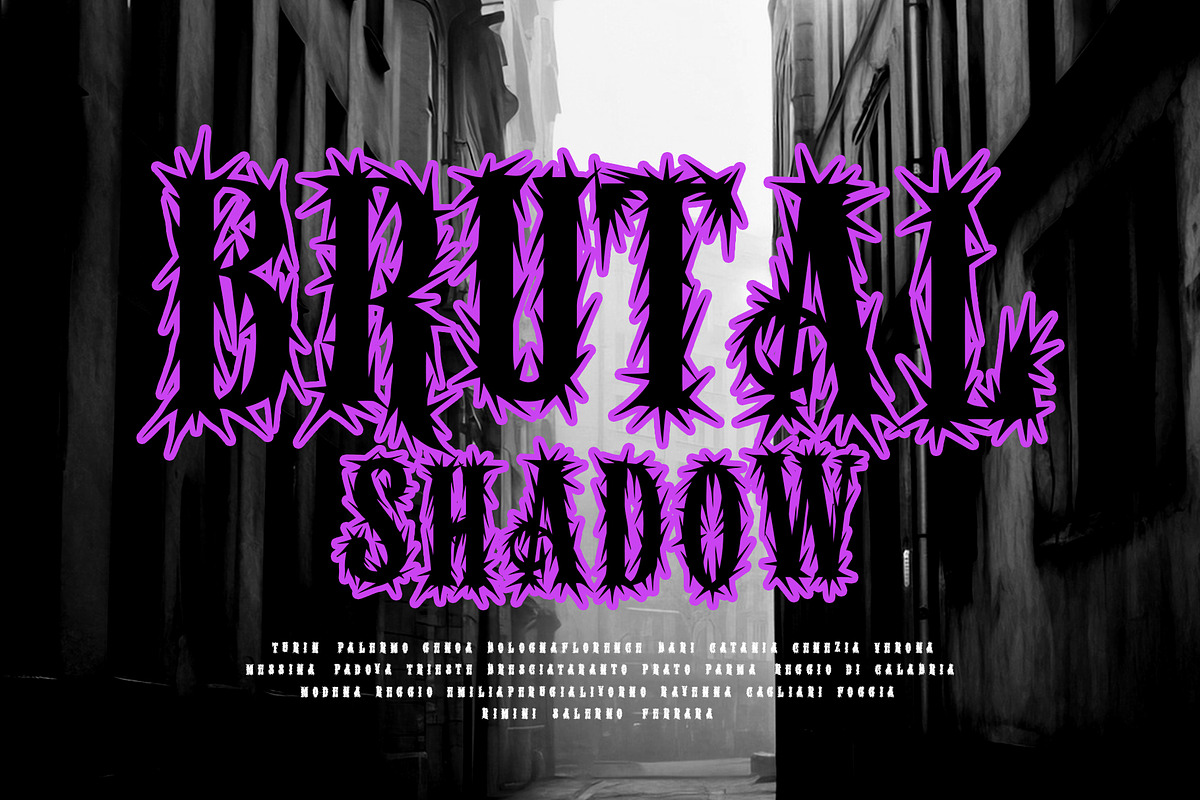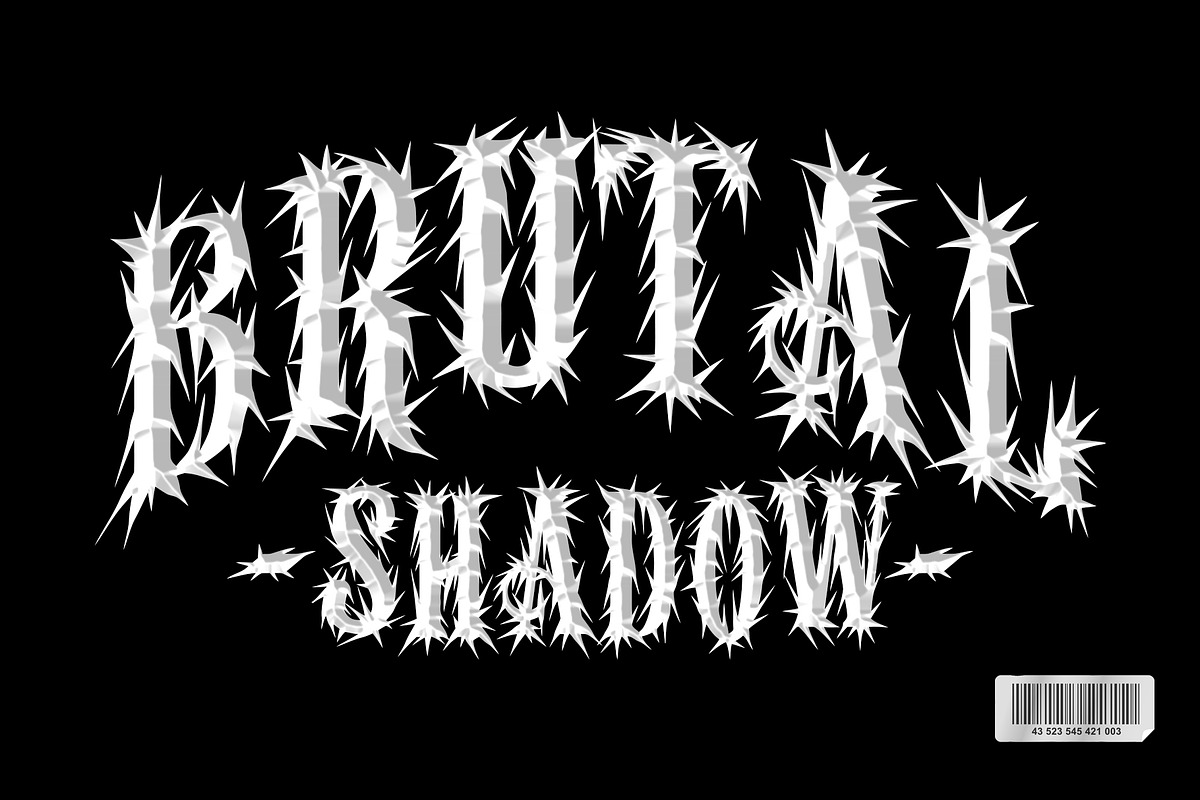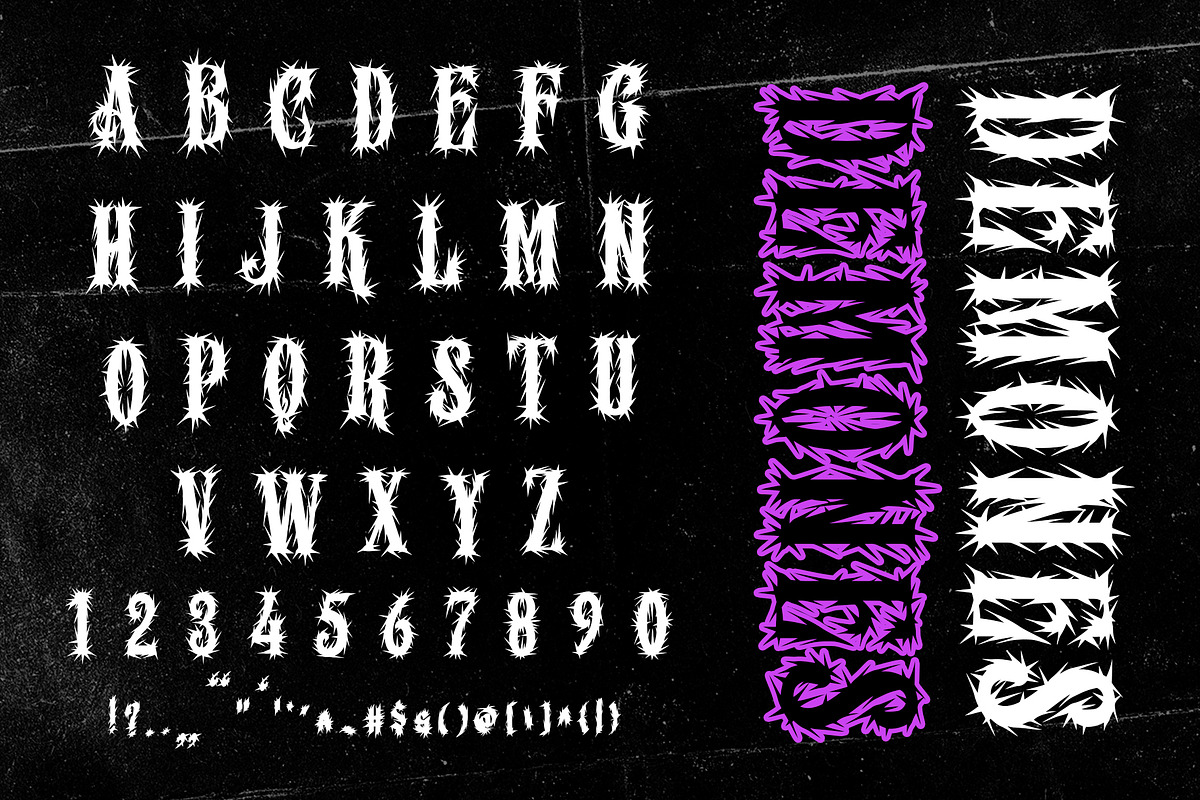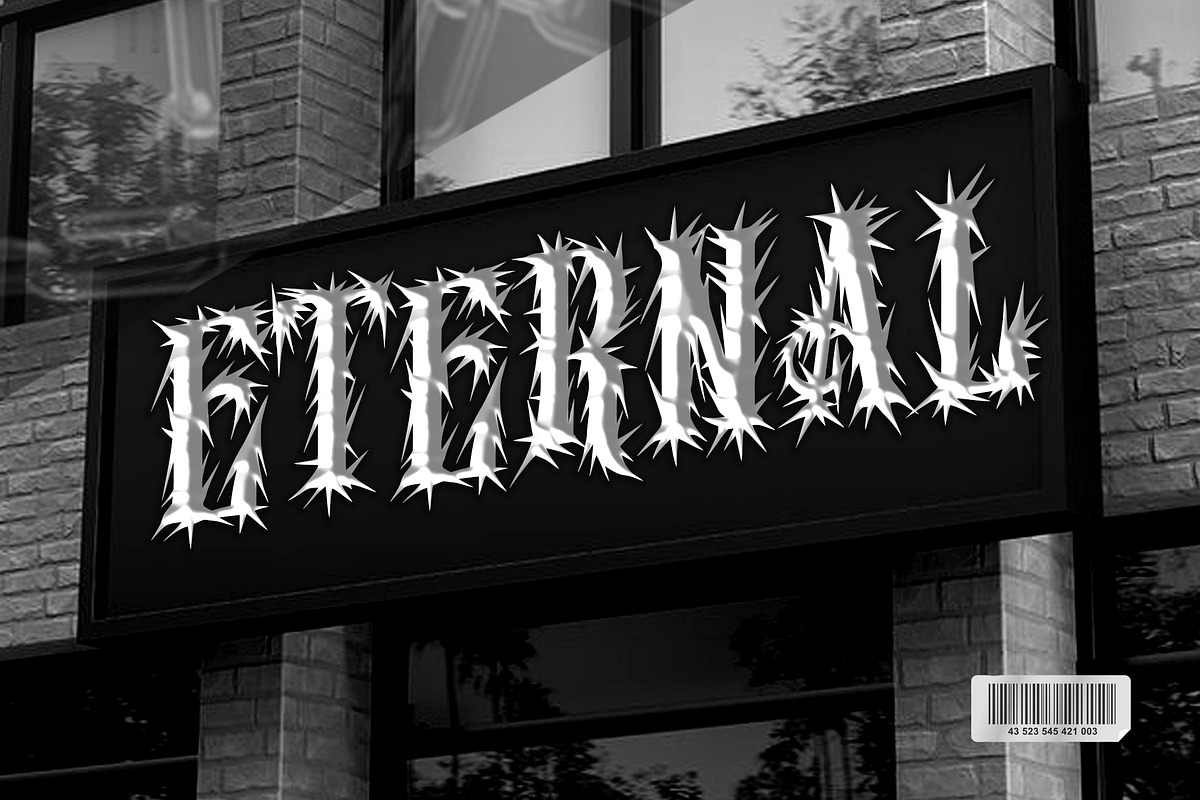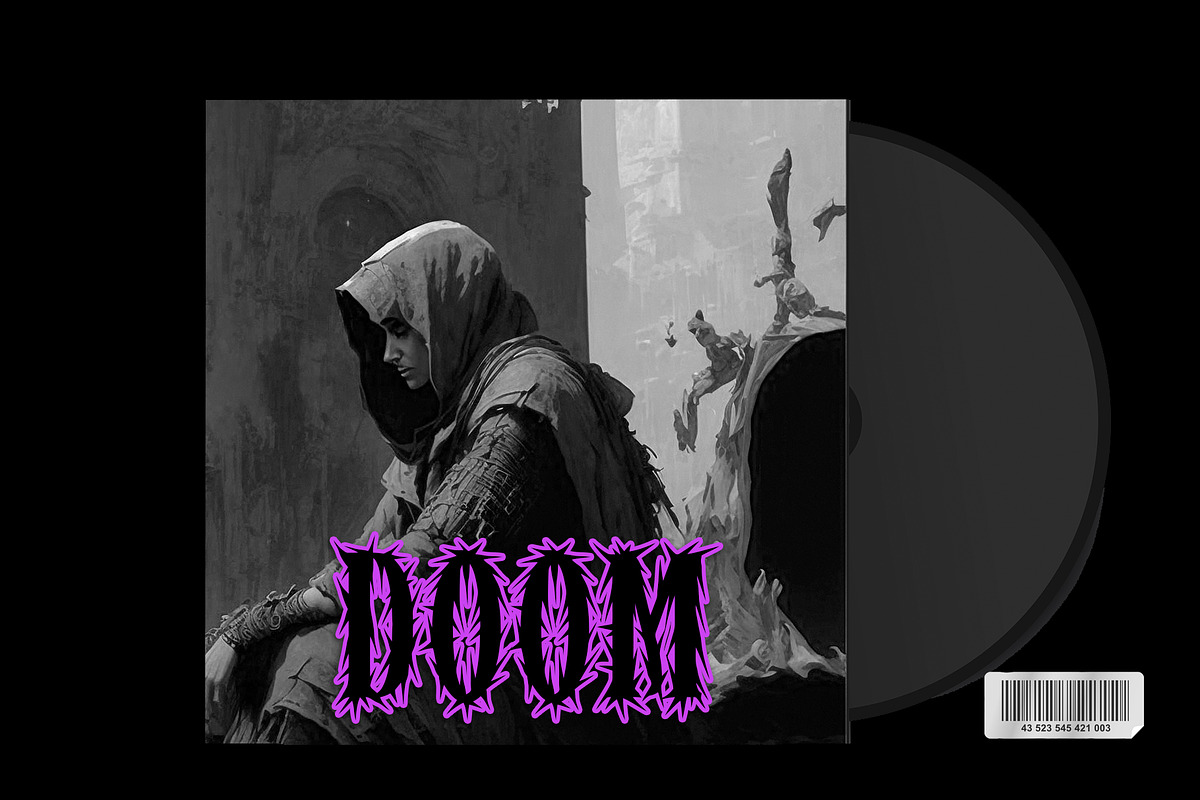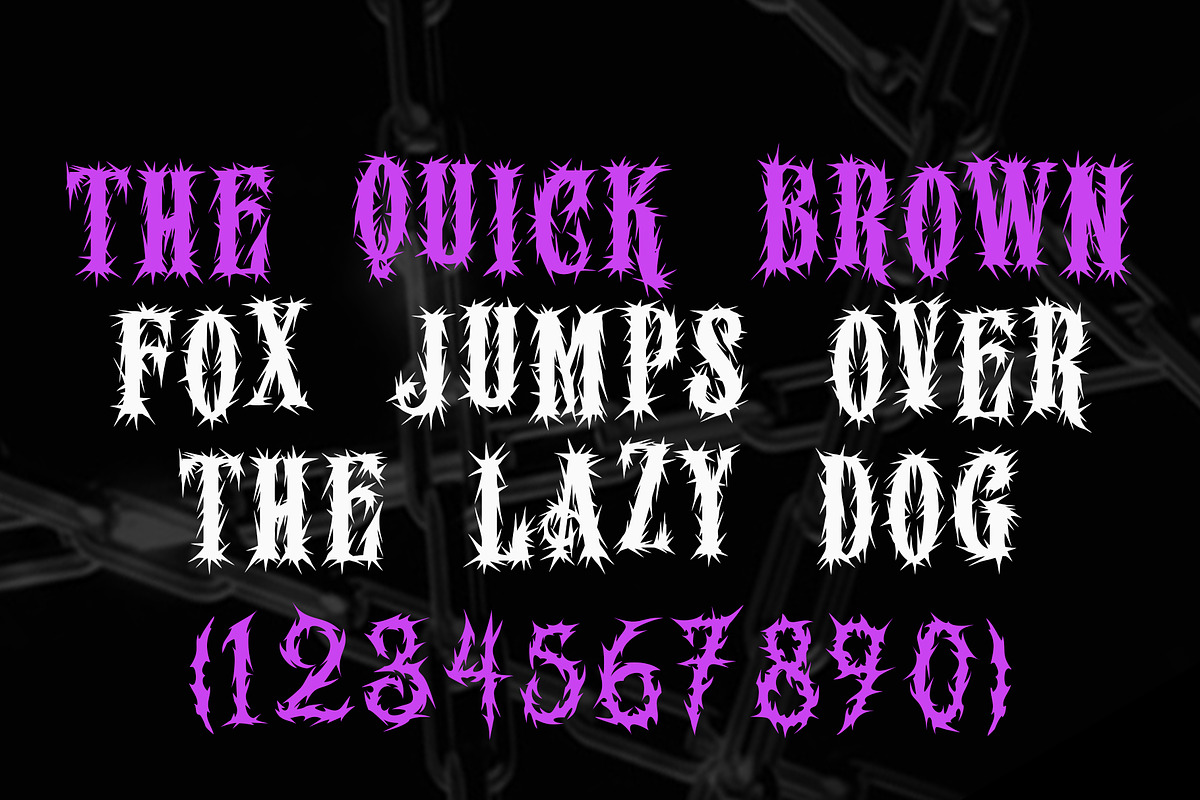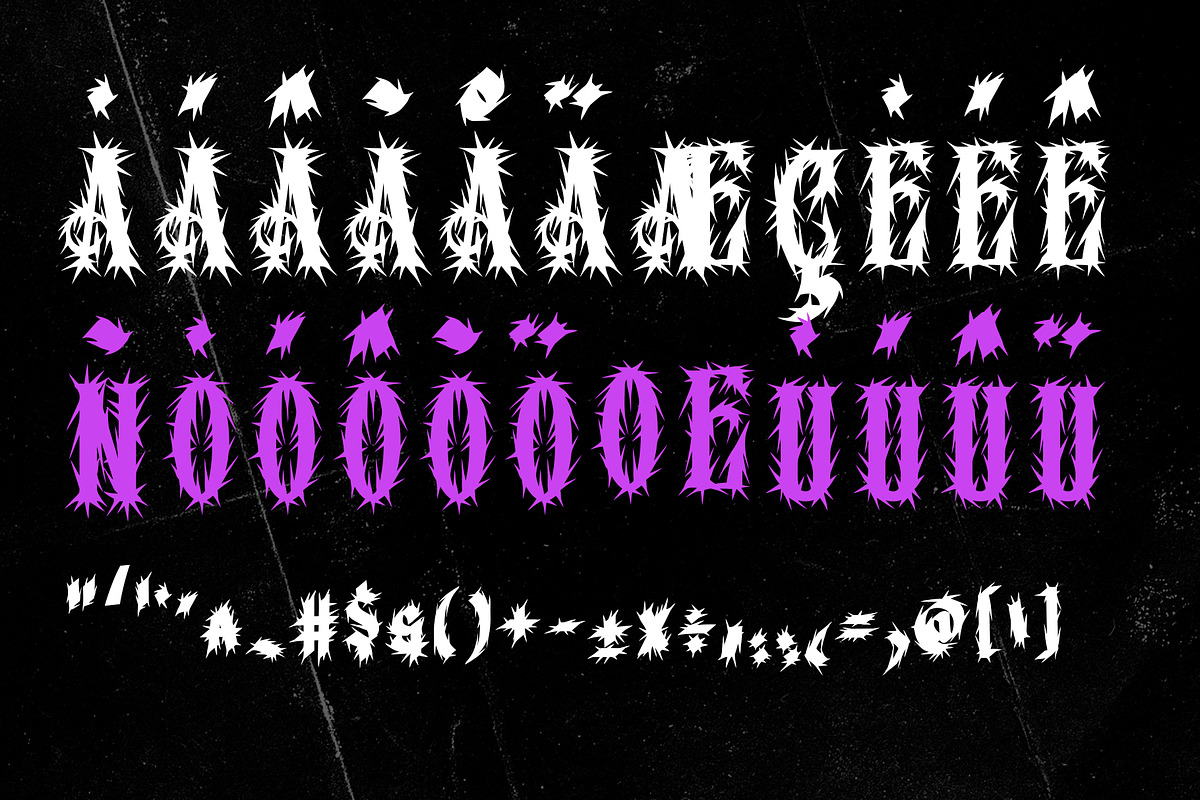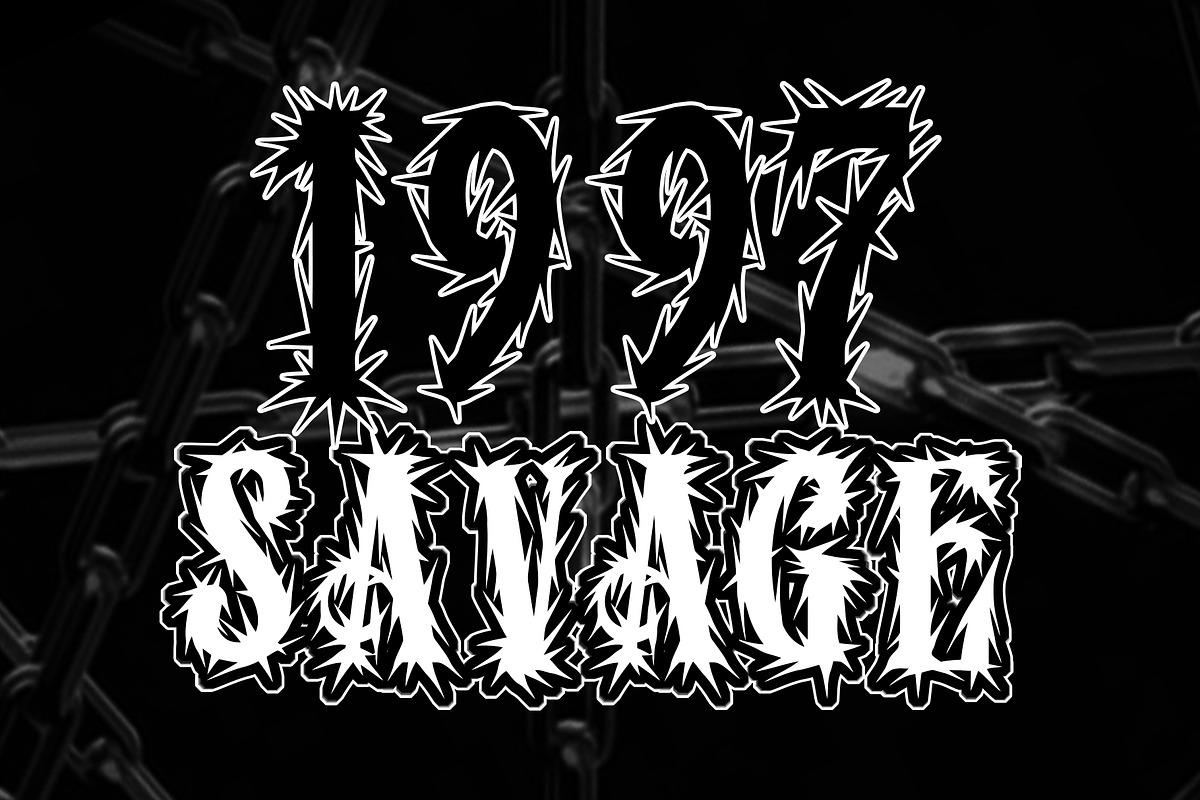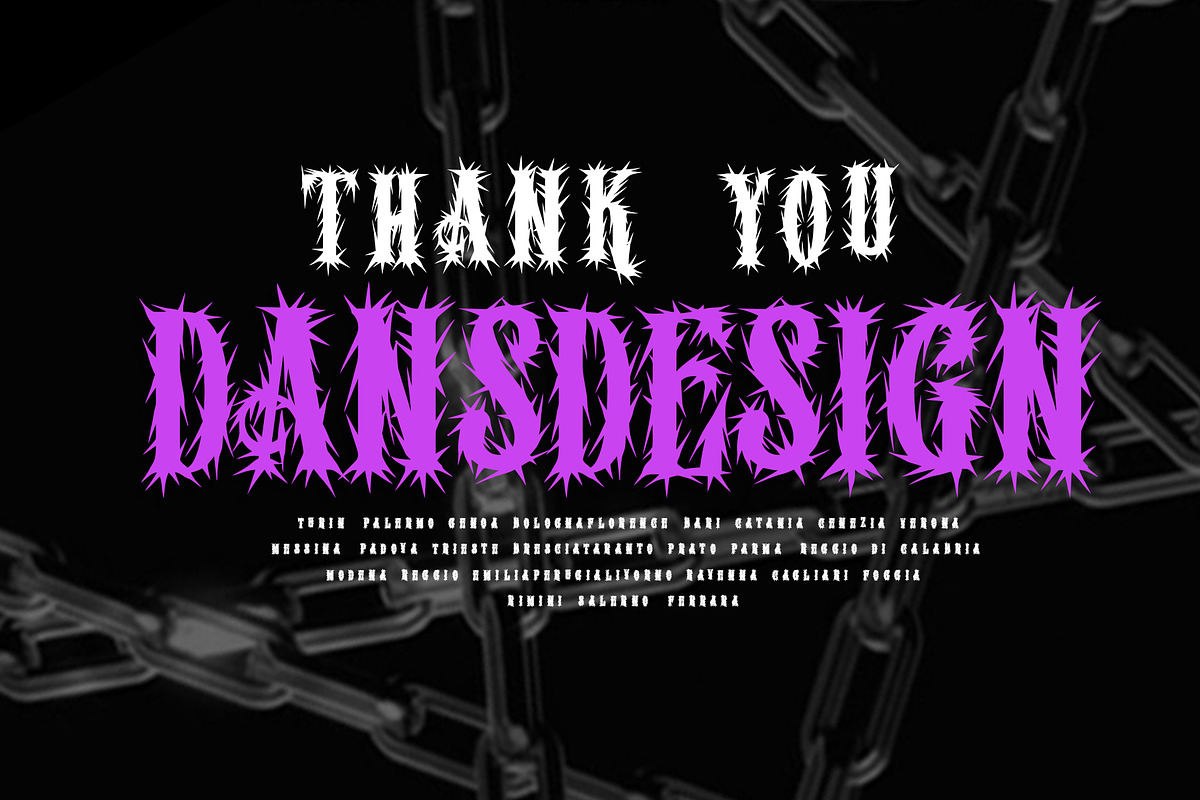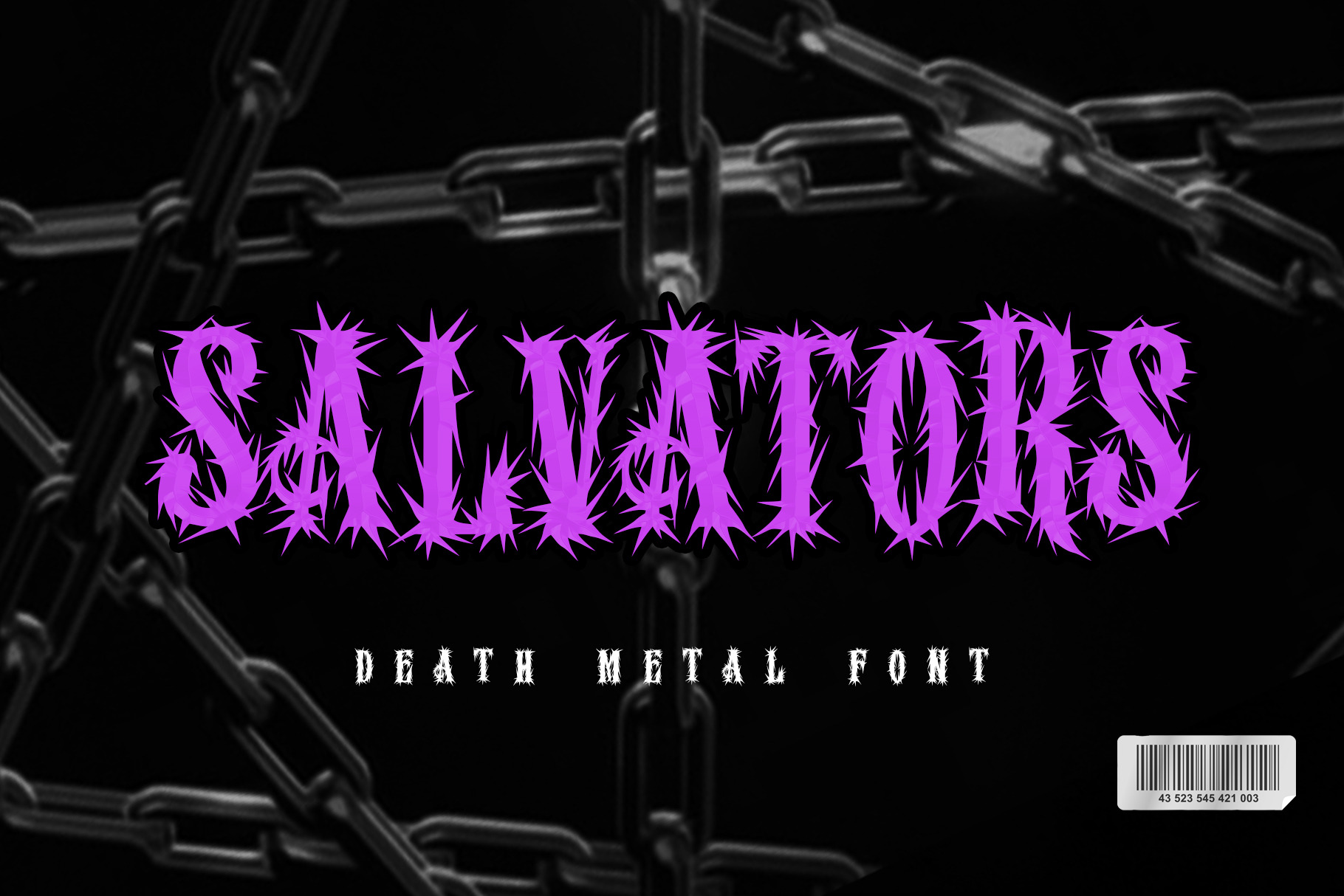
Salvators Metal Display Font
Salvators – Death Metal Font is a brutal and highly detailed blackletter display typeface designed with sharp thorn-like edges and spiked ornamentation. Perfectly crafted for extreme music, this font captures the raw energy of death metal and hardcore culture. Its aggressive style makes it ideal for band logos, album covers, concert posters, tattoos, streetwear branding, and any design that demands a dark and rebellious atmosphere. Salvators comes with bold uppercase letters, numerals, punctuation, and multilingual support, ensuring versatility across print and digital projects. Unleash the power of gothic metal aesthetics and make your designs scream with Salvators.